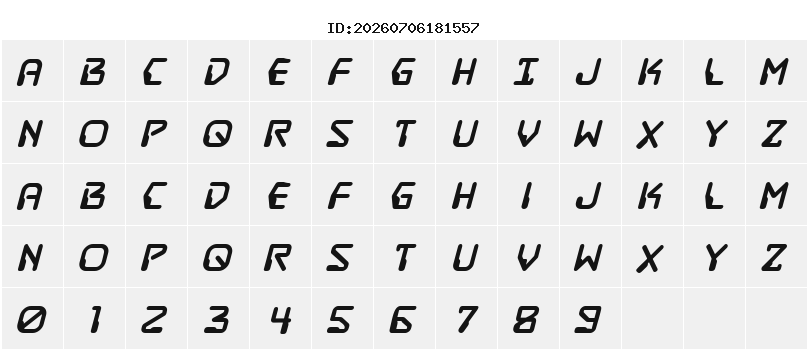
DestructoBeam BB Preview
• Font Name: DestructoBeam BB
• Font ID: NatePiekos.Blambot.com: DestructoBeam BB Bold: 2006
• Full Font Name: DestructoBeam BB Bold
• Version: Version 1.000 2006 initial release
• PostScript Name: DestructoBeamBB-Bold
• Designer: Nate Piekos
• Manufacturer: Nate Piekos. Blambot.com
About DestructoBeam BB.ttf
DestructoBeam BB.ttf is a modern, elegant sans-serif font designed for ultimate readability and visual harmony. Perfect for branding, headlines, web design, and print materials.